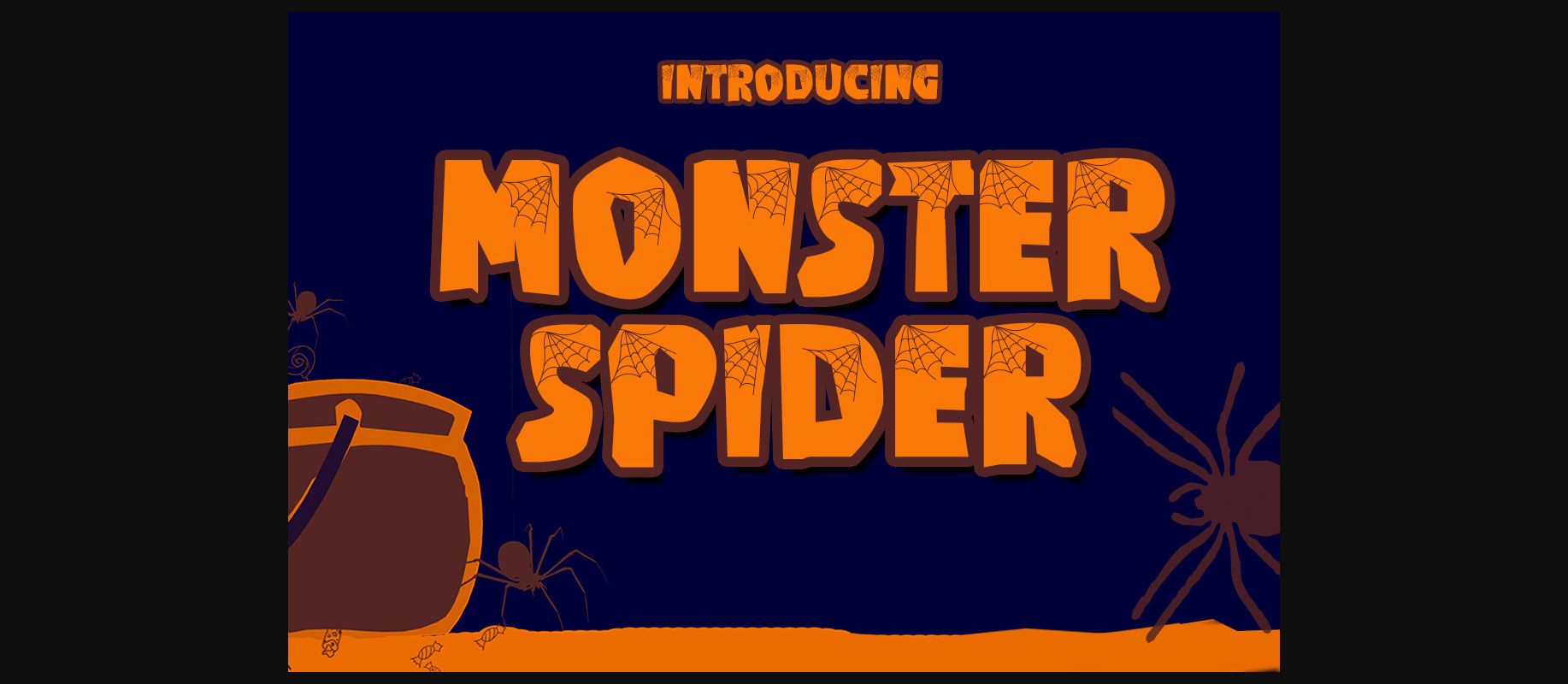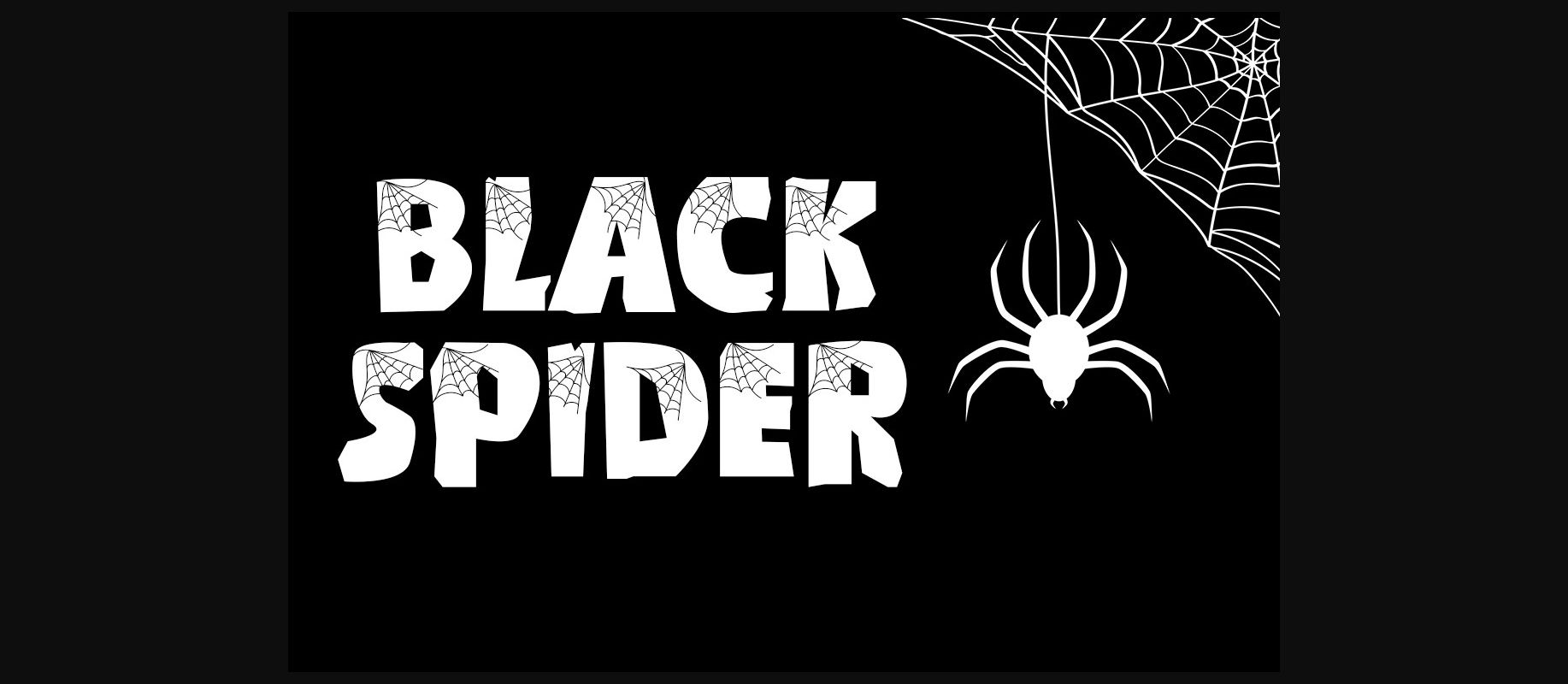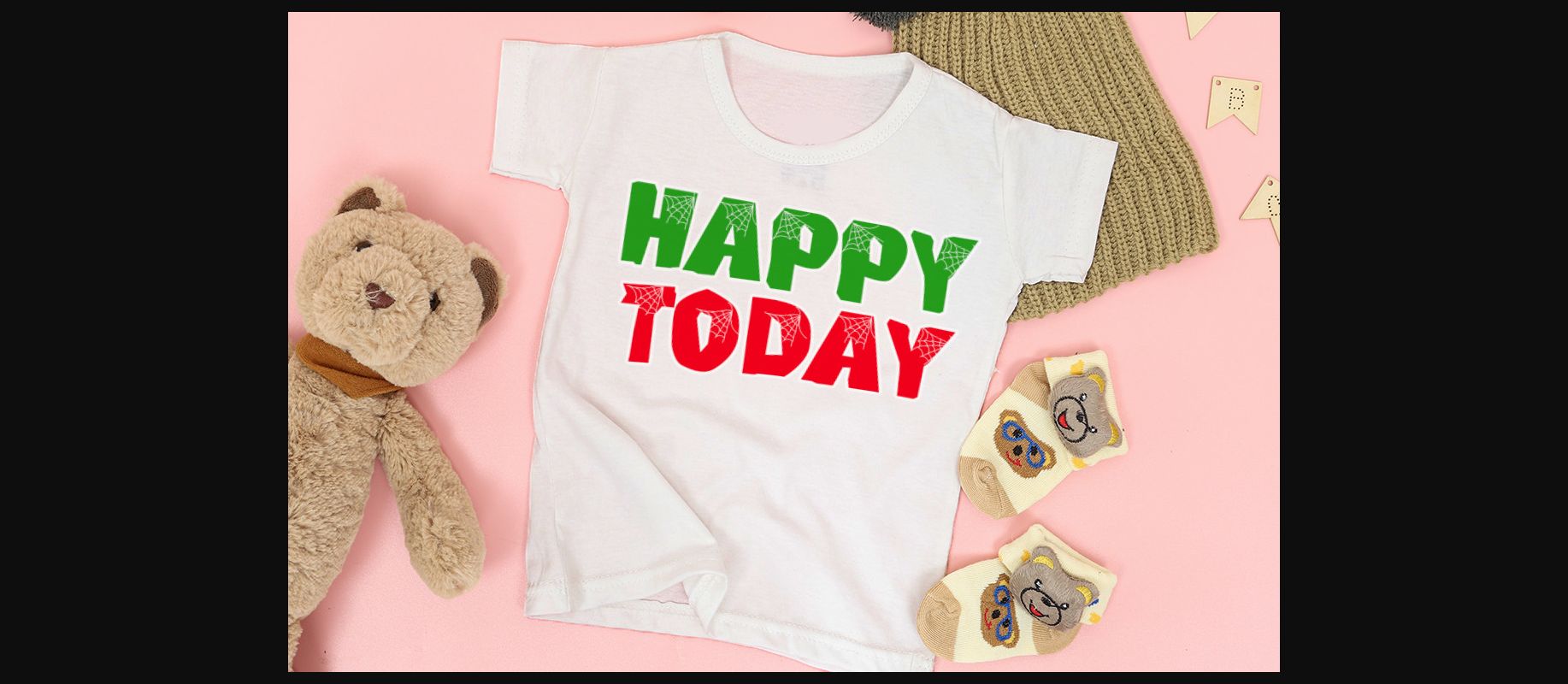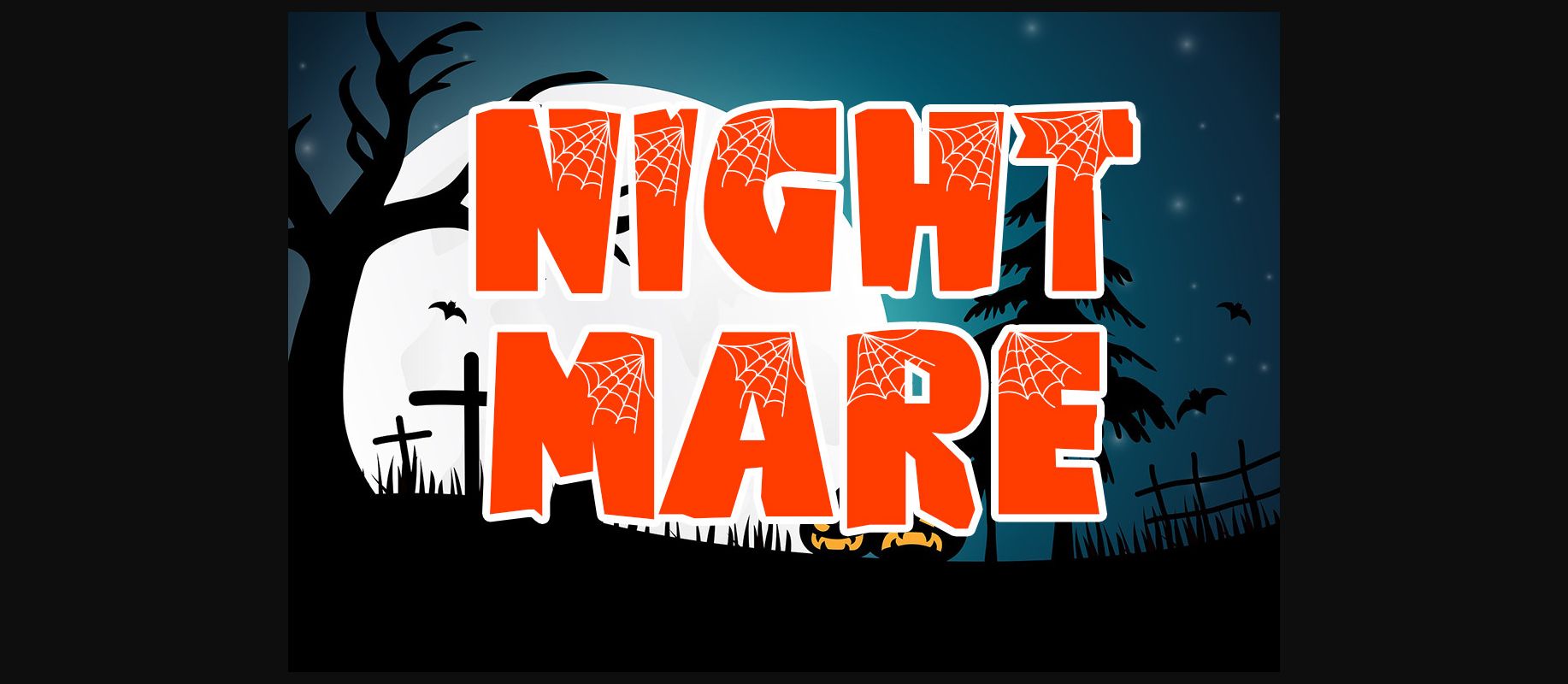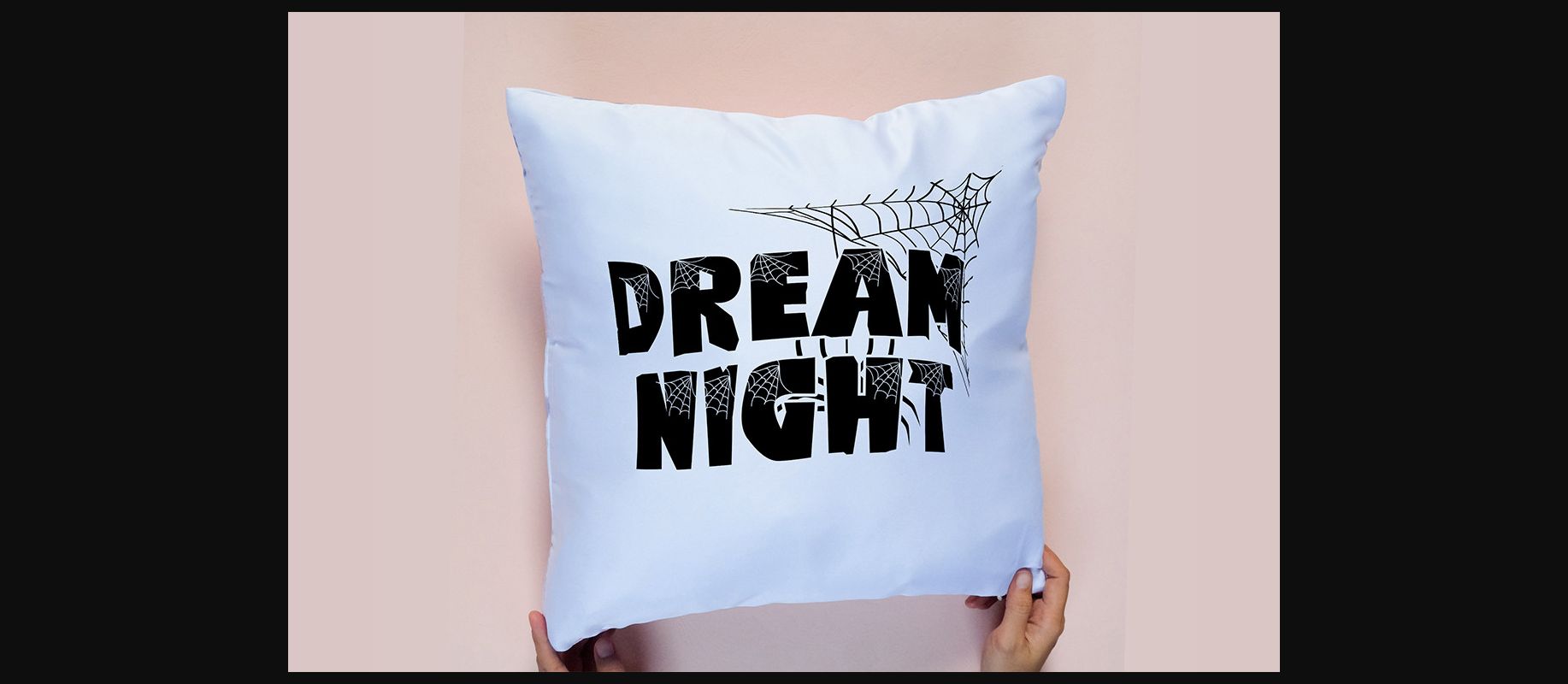
HomeDecorative FontsMonster Spider Font Decorative Fonts Monster Spider Font FacebookXPinterestWhatsApp 1 of 7 ... Monster Spider Font Poster 2... Monster Spider Font Poster 3... Monster Spider Font Poster 4... Monster Spider Font Poster 5... Monster Spider Font Poster 6... Monster Spider Font Poster 7... About Monster Spider Font Monster Spider is a fun and cartoon-like decorative font. It is perfectly suitable for any Halloween-related project or crafty idea! The only limit is your imagination. DOWNLOAD NOW People also explored Onette Font Sweet Love Font Camping Holiday Valentine Melodyne Font Beloved Font Indentia Font Himalaya Set Font Soccer Font Sweet Poetry Font 304 0 TagsMonster Spider Font Previous articleSpider Hat Monogram FontNext articleMonogram Prince Font LEAVE A REPLY Cancel reply Comment: Please enter your comment! Name:* Please enter your name here Email:* You have entered an incorrect email address! Please enter your email address here Website: Save my name, email, and website in this browser for the next time I comment. Personal Use Free Angelia Personal Use Free Read more about this font Bettari Personal Use Free Read more about this font Hiters Personal Use Free Read more about this font Frizton Personal Use Free Read more about this font BLOG 5 Fonts That Will Dominate Design Trends in 2026 5 Fonts for 2026 That Will Dominate Design Trends Typography plays a critical role in visual communication, and as we look ahead to 2026, it’s... Fonts That Capture the Spirit of New York City The 10 Best Handwriting Fonts to Add Personality to Your Designs Best Fonts for YouTube Videos: Make Your Thumbnails Stand Out